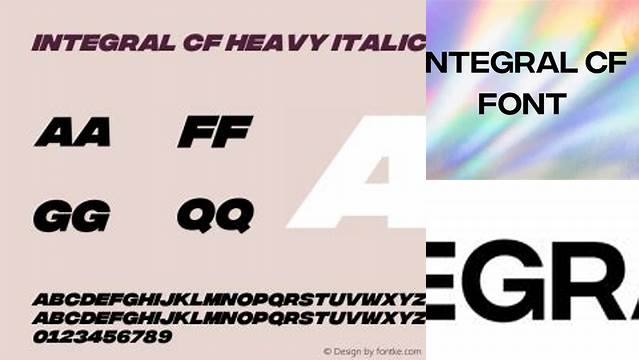
Hey everyone! If you're on the hunt for a cool, bold font, then you've probably stumbled upon Integral CF Heavy. It's a real workhorse of a typeface – perfect for making a statement. And the best part? You can get an integral cf heavy free download! But navigating the world of font downloads can be tricky, so let's break it down and make sure you get the real deal, safely and easily.
Understanding the Allure of Integral CF Heavy
First off, what's the big deal about Integral CF Heavy? Well, it's a heavy, attention-grabbing font. Think of it as the strong, silent type of the font world. It’s designed to be noticed. Its robust letterforms are excellent for headlines, titles, and any design element that needs to shout, “Look at me!” The font is a variation of the Integral CF font family, but with an extra dose of boldness. The bold nature of this typeface makes it a fantastic choice for logos, posters, and even web design elements that require a bit of extra visual weight. It's got that modern, clean aesthetic that’s super popular right now. Plus, the different weights and styles in the Integral CF family let you mix and match to achieve the right look for your project.
Imagine this: you're designing a poster for an event. You want to grab attention instantly. Integral CF Heavy is your friend! Or maybe you're working on a website and need a header font that stands out against a busy background. You got it! It’s versatile enough to work in both print and digital media, making it a go-to choice for designers of all stripes. Its legibility at larger sizes makes it ideal for branding, while its contemporary feel ensures that your designs look fresh and up-to-date. Getting an Integral CF Heavy free download means having a powerful tool in your design arsenal, without breaking the bank.
Unveiling the Uses: Integral CF Heavy in Action
Okay, you’ve got the font, and it's installed. Now the fun begins: how to use it! Integral CF Heavy is a powerhouse for all sorts of projects. Its boldness makes it ideal for headlines and titles. Think about a website landing page. You want a headline that immediately grabs the visitor’s attention, and Integral CF Heavy does the job. You can use it for posters to advertise an event or a product. The impact is immediate, making sure your message is impossible to miss. In branding, the font can be used for logos. A strong font can communicate strength, reliability, and modernity, all in one go.
However, it's important to use the font strategically. Don’t overuse it in large blocks of text. It’s designed to be heavy, so it can be hard to read in big chunks. Instead, pair it with a more readable font for body text. Choose a font that offers good contrast to make your designs visually appealing. For example, combine Integral CF Heavy for headlines with a clean, sans-serif font for the body. Also, consider the overall tone of your design. Integral CF Heavy has a modern and confident feel, so it's a great choice for brands and projects that want to communicate those qualities.